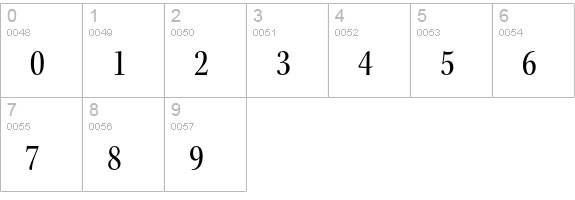
Kepler Std Condensed Subhead Font Details
Kepler Std Condensed Subhead is a distinctive, condensed-width variant in the Kepler typeface family \xE2\x80\x94 well suited to design and typography projects.
The Kepler Std Condensed Subhead font is a modern and elegant typeface that is perfect for creating eye-catching subheadings and titles in your designs. Its condensed design adds a touch of sophistication and professionalism to any project. This versatile font features clean and crisp letterforms that are easy to read, even at smaller sizes. The slightly condensed spacing allows for more text to fit in limited spaces without sacrificing legibility. Whether you're designing a magazine layout, a website header, or a poster, the Kepler Std Condensed Subhead font is sure to make your text stand out. Its refined and sleek appearance adds a touch of elegance to any design, making it suitable for a wide range of applications. Best of all, this font is available for free download at FontsMarket.com. You can easily access and install this font to enhance your creative projects without any additional cost. Take advantage of this opportunity to elevate your designs with the Kepler Std Condensed Subhead font and create stunning visuals that captivate your audience.